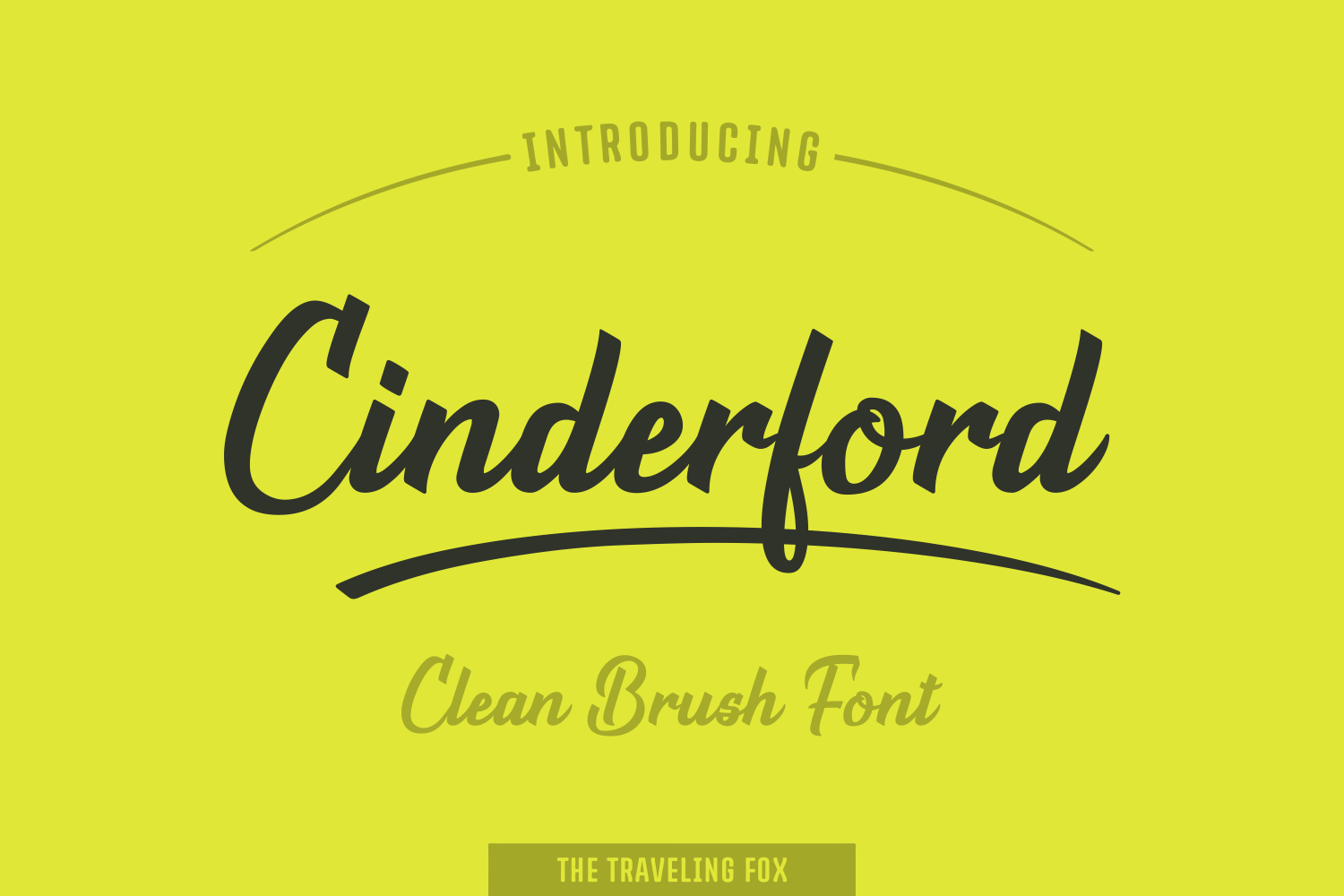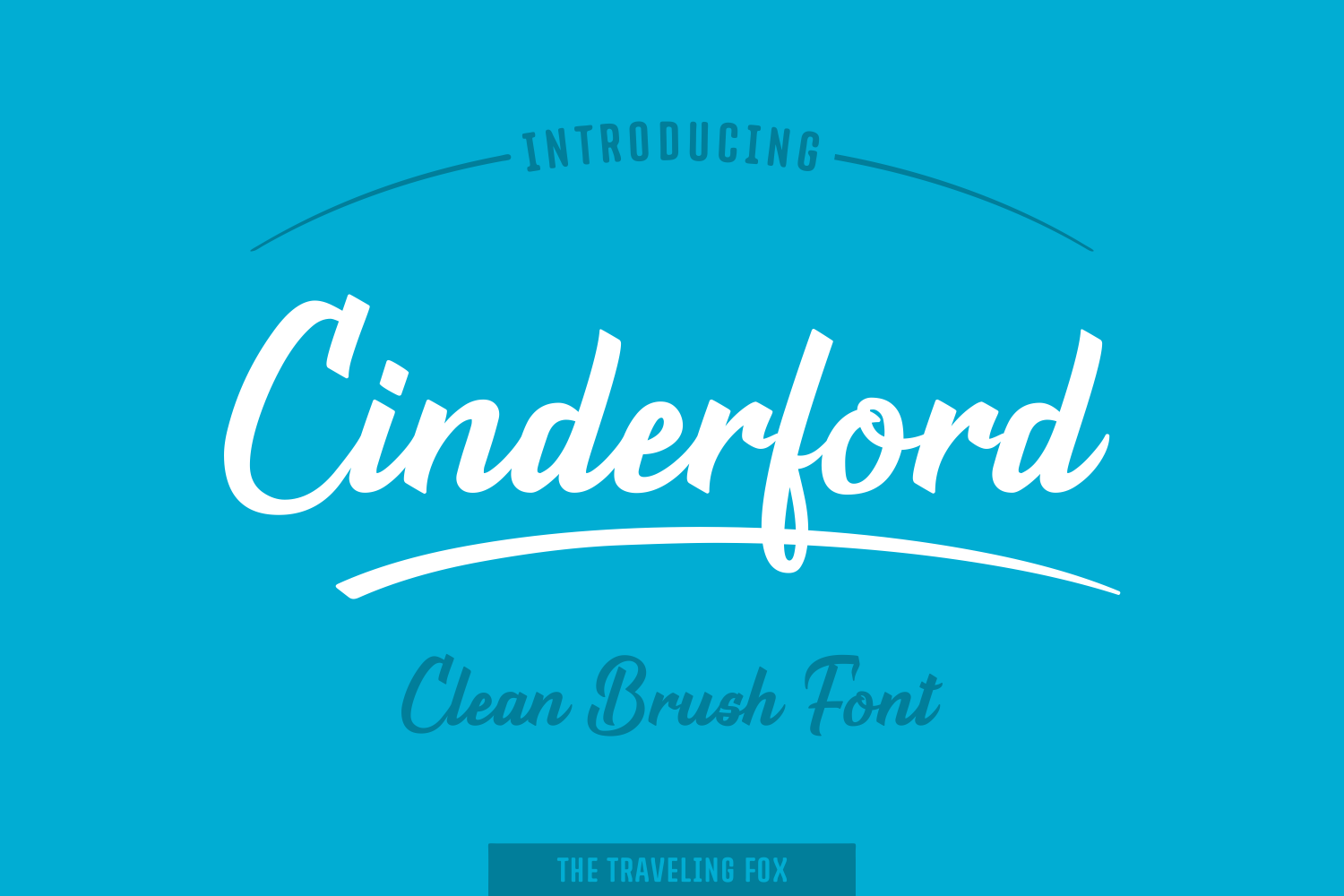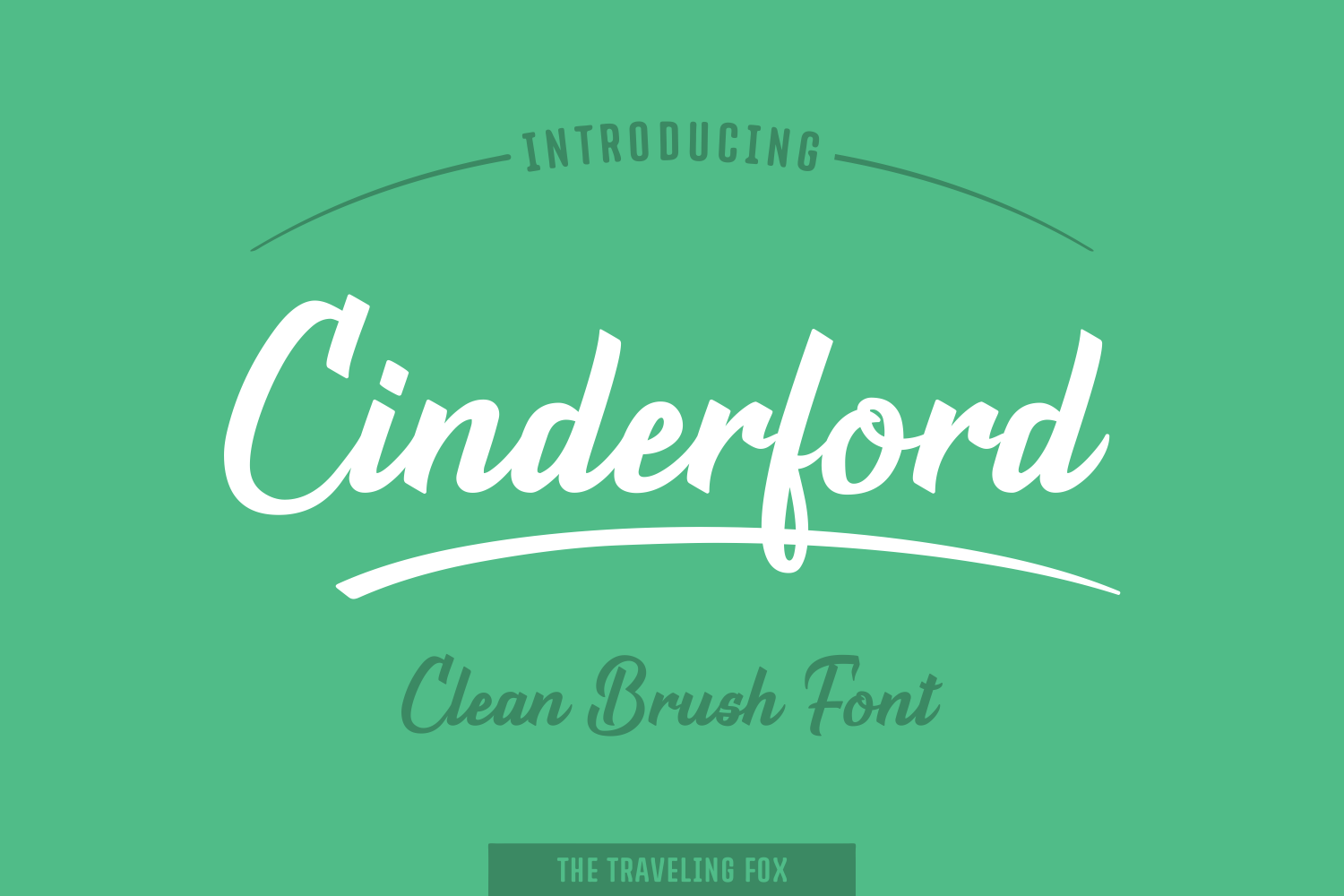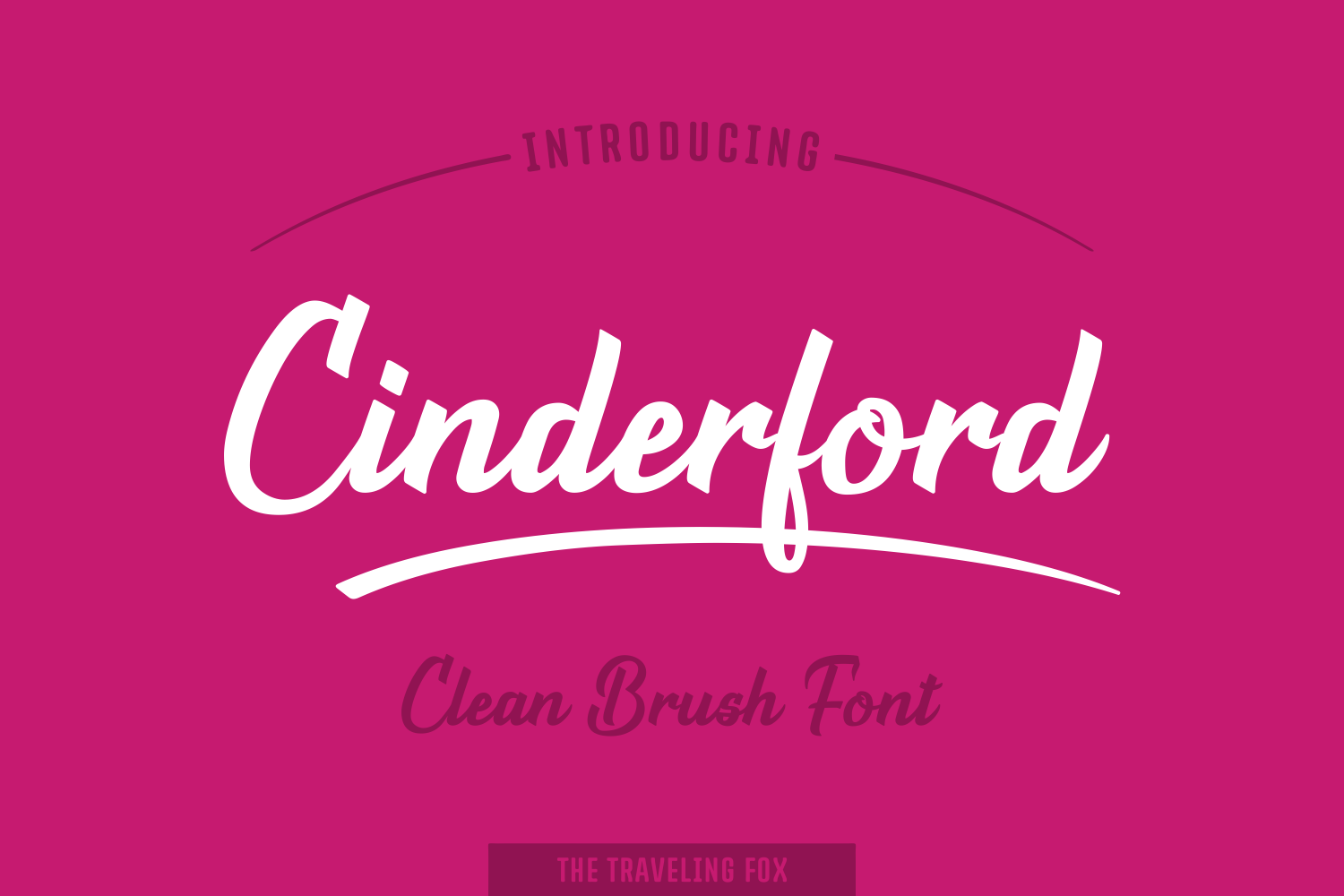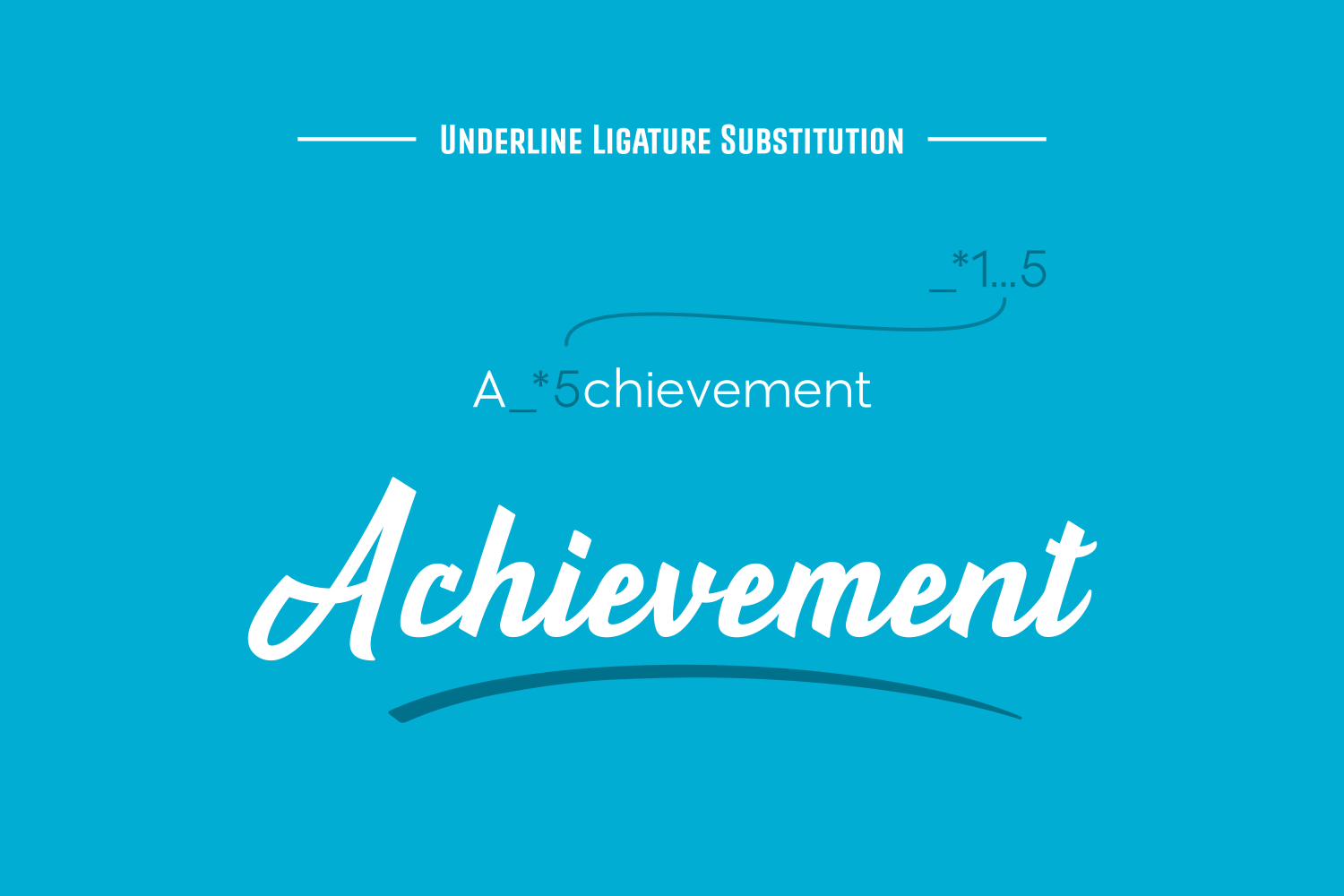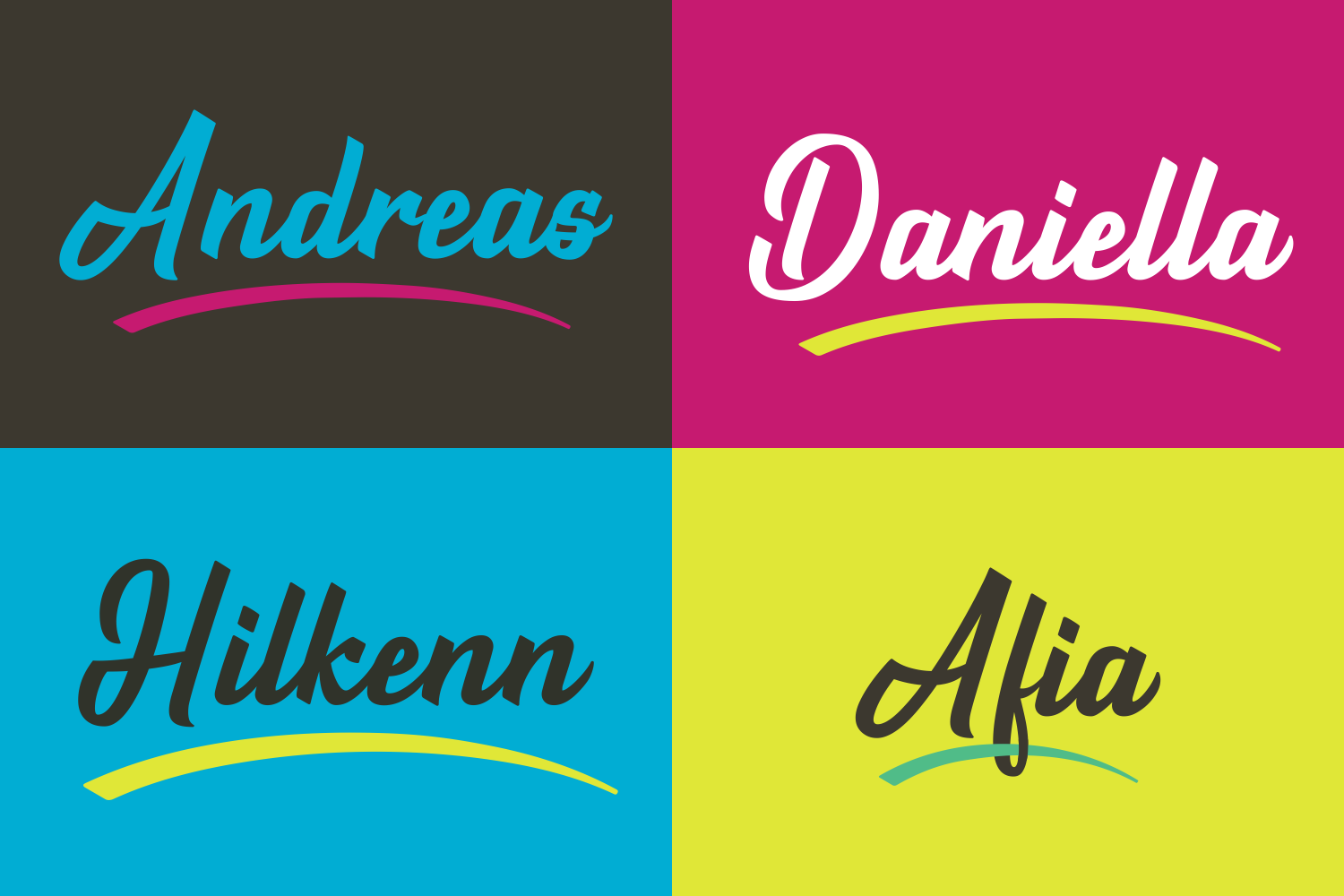
Cinderford Font
About Cinderford Font
Cinderford is a stunning and sporty script, bold and with squared edges. Use Cinderford for attention grabbing displays.